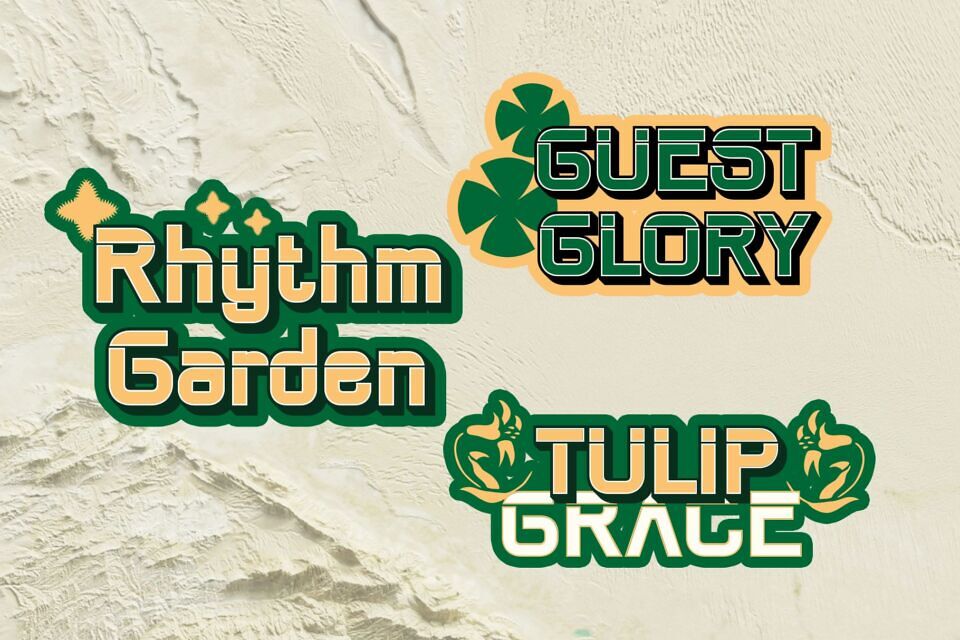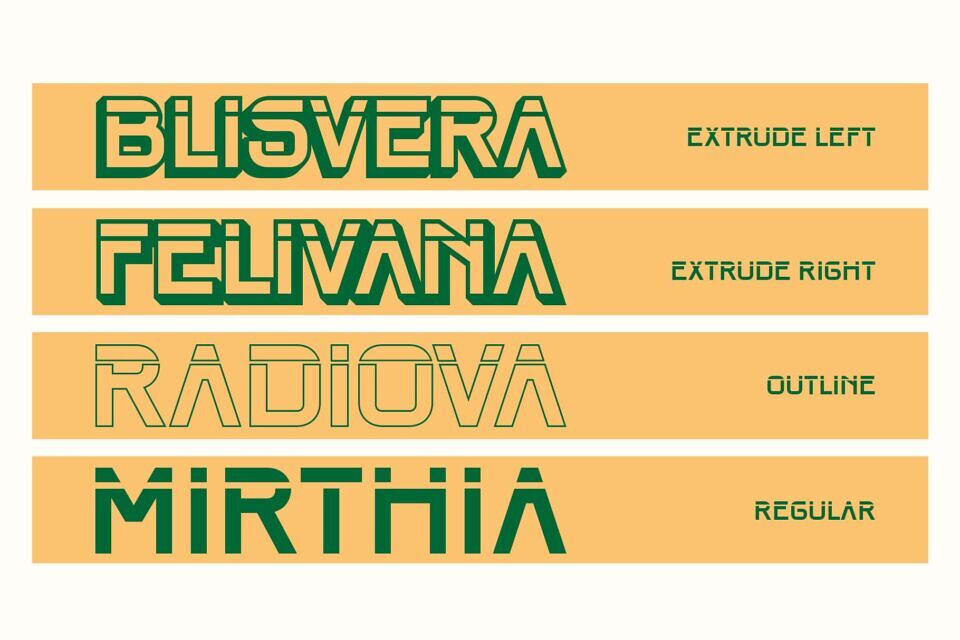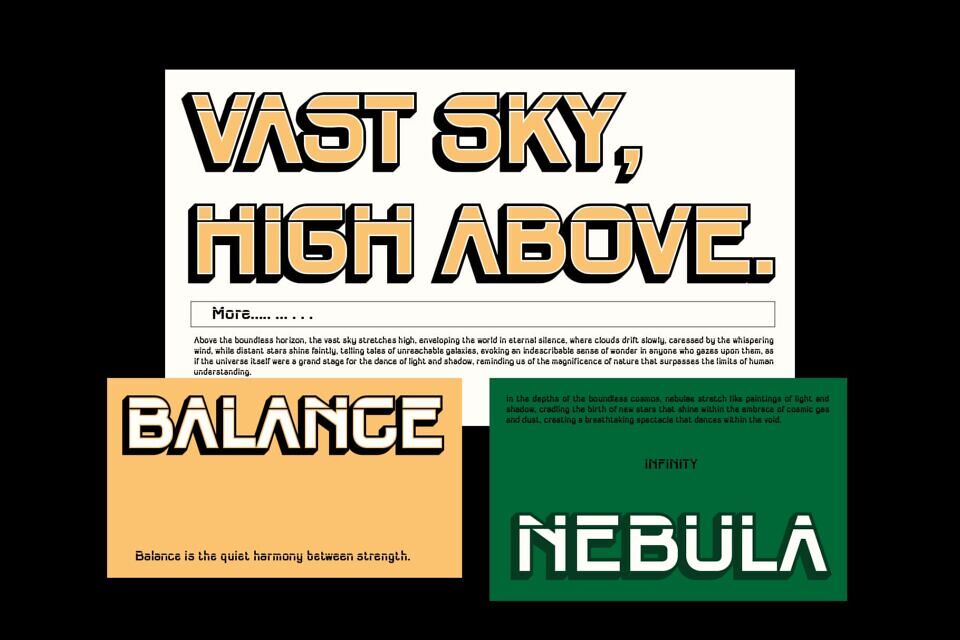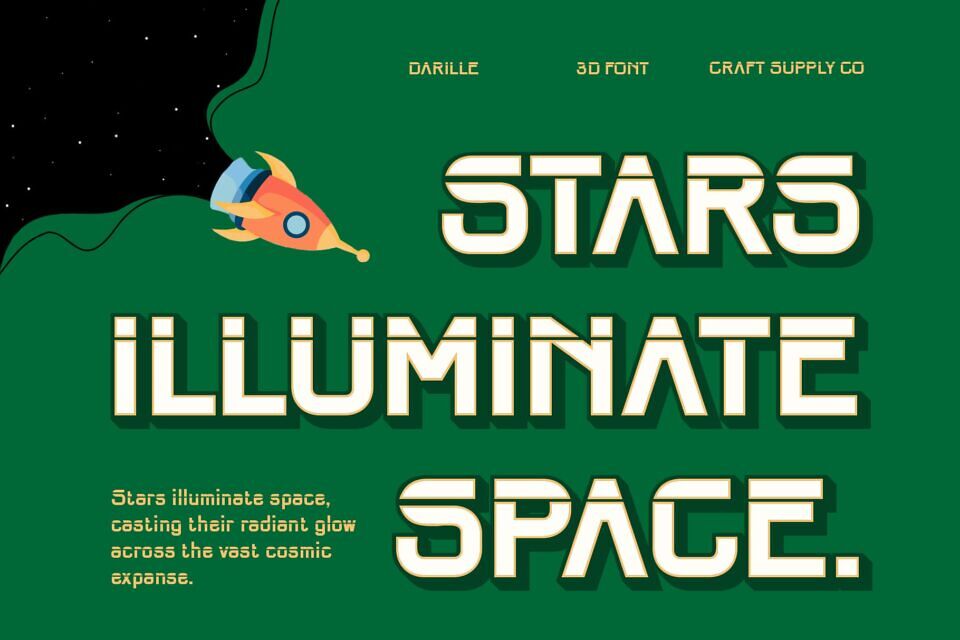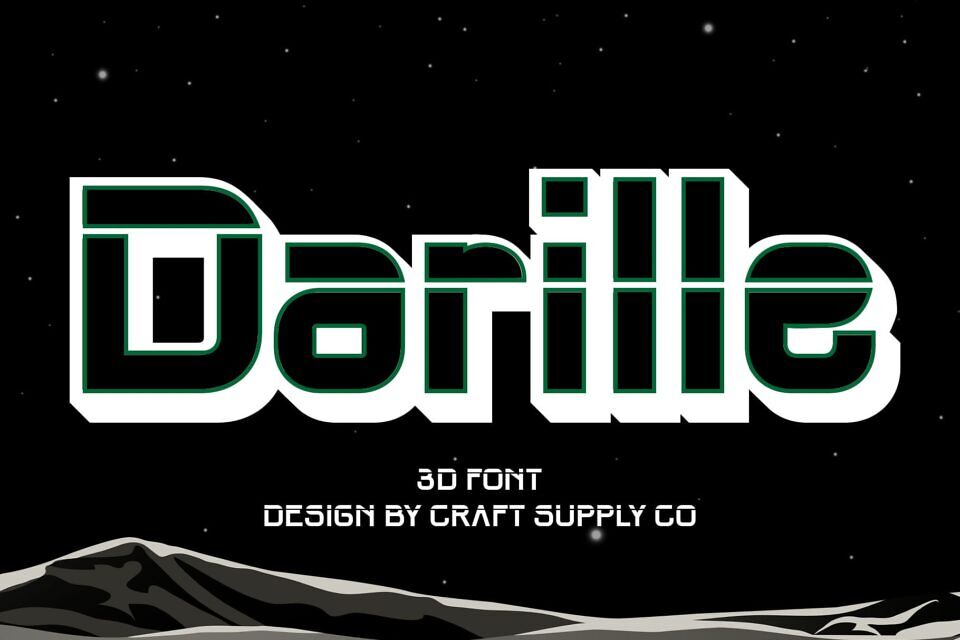
Darille 3D Font
Darille 3D is a modern sans-serif font that features a geometric structure with a bold 3D effect, adding depth and a futuristic vibe. Its sharp angles, clean lines, and sleek letterforms make it perfect for tech, sci-fi, and innovative branding.
Ideal for UI/UX, posters, logos, and gaming interfaces, Darille 3D offers high readability and a striking visual impact. The font’s contemporary design and three-dimensional depth create a sense of movement, making it a standout choice for headlines, banners, and experimental projects that demand a visionary, high-tech aesthetic across digital and print media.